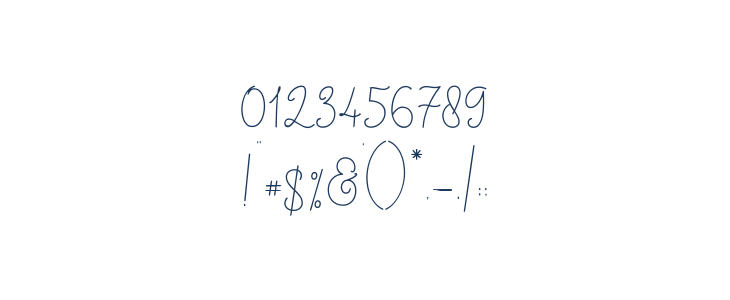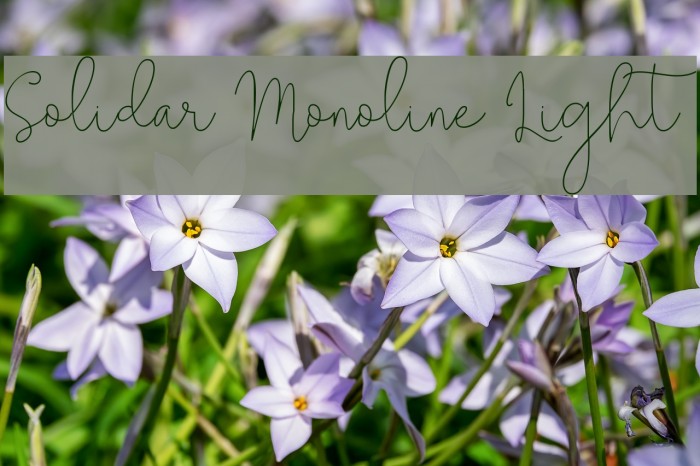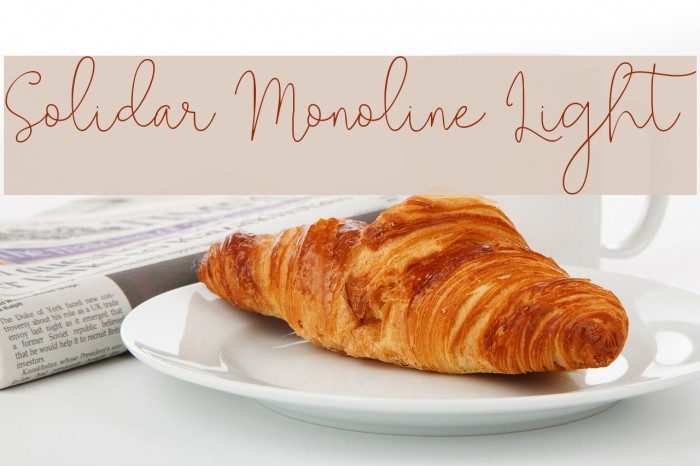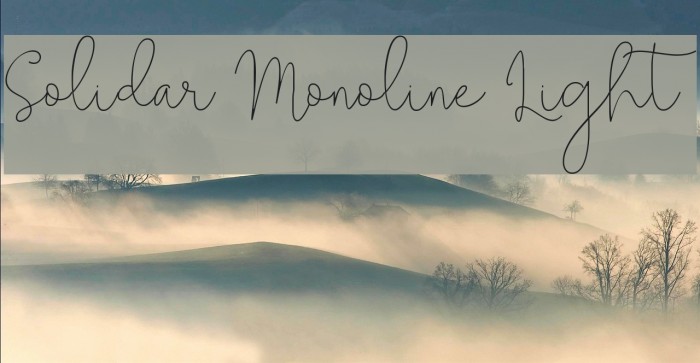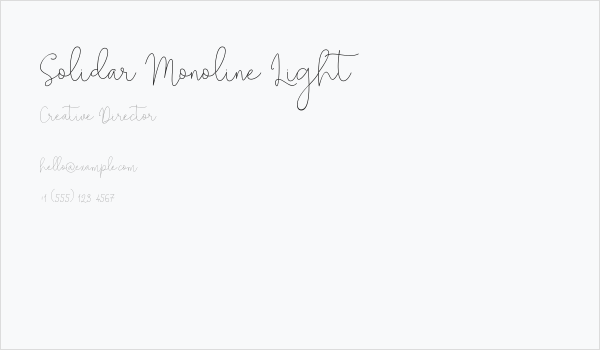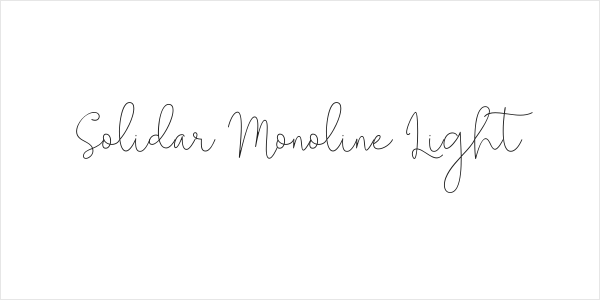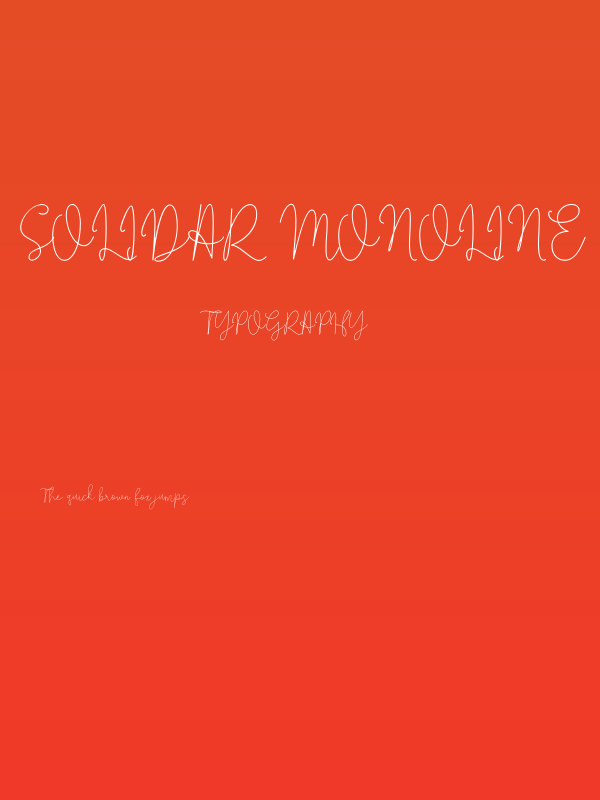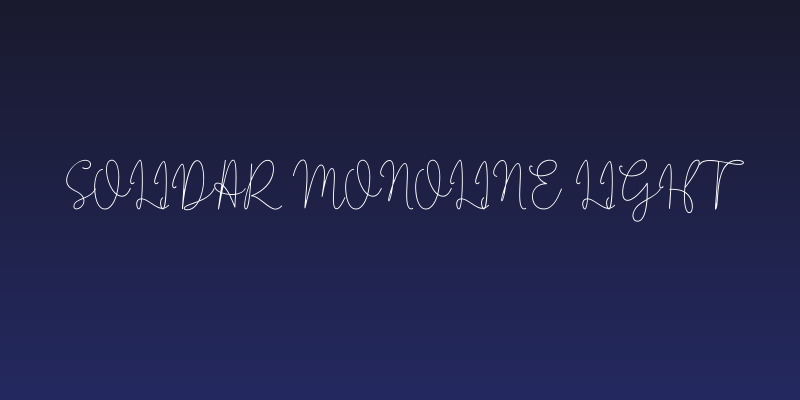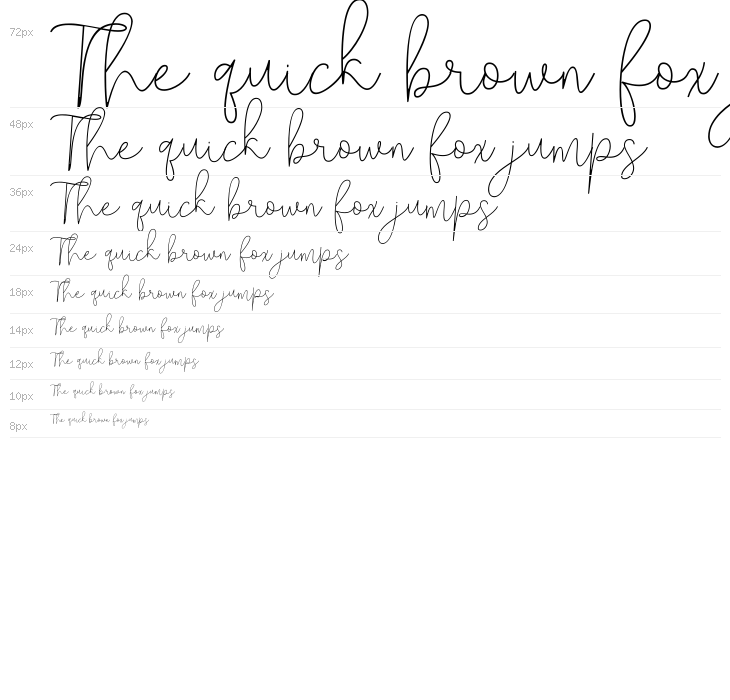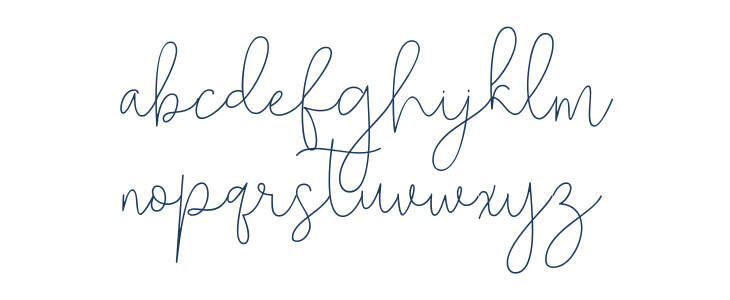
Solidar Monoline Light Font
Solidar Monoline Light Description
This font features a delicate and elegant monoline script style, characterized by its continuous and flowing strokes. The letters are connected in a cursive manner, giving it a handwritten appearance. The thin lines create a light and airy feel, making it suitable for designs that require a touch of sophistication and grace. The uppercase letters are slightly more elaborate, while the lowercase letters maintain a consistent flow. Numbers and special characters are designed to match the overall aesthetic, ensuring a cohesive look across all text elements.
| Overall Style | Elegant, Handwritten |
| Proposed Projects | Ideal for wedding invitations, greeting cards, personal branding, and elegant packaging designs. |